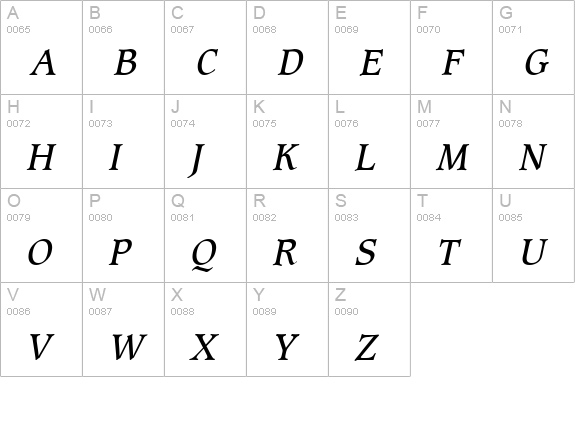
Clayton Italic is a distinctive, italic variant in the Clayton typeface family \xE2\x80\x94 well suited to design and typography projects.
Clayton Italic font is a sleek and elegant typeface that exudes sophistication and modernity. Its slanted letters give off a sense of dynamic movement, making it perfect for projects that require a touch of flair and style. The graceful curves and precise angles of Clayton Italic font make it a versatile choice for a wide range of design applications, from branding and advertising to editorial layouts and digital projects. Best of all, Clayton Italic font is available for free download at FontsMarket.com. This means you can add this exquisite font to your collection without any cost, allowing you to enhance your projects with a touch of class and creativity. Don't miss out on the opportunity to elevate your designs with the timeless beauty of Clayton Italic font – download it for free today!